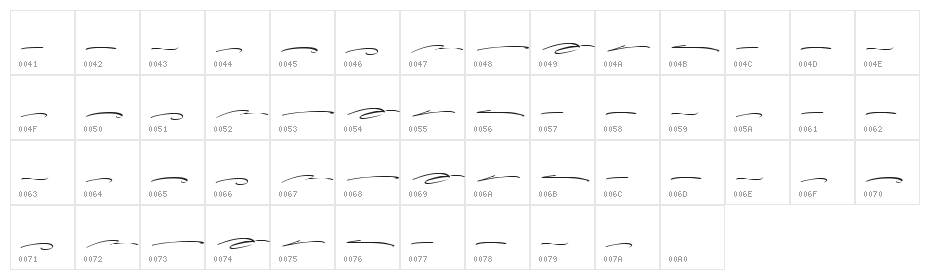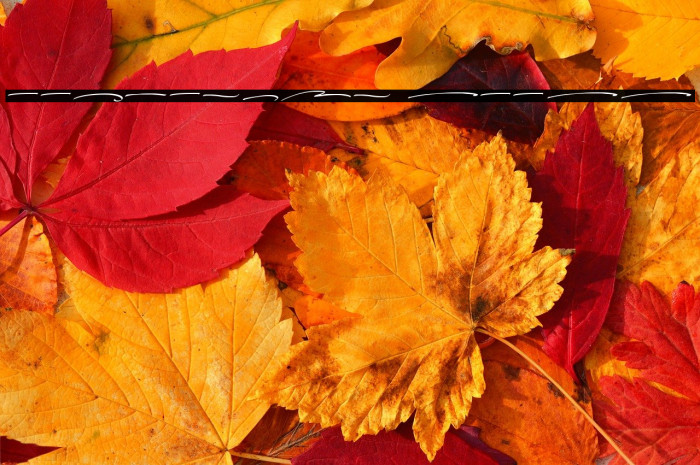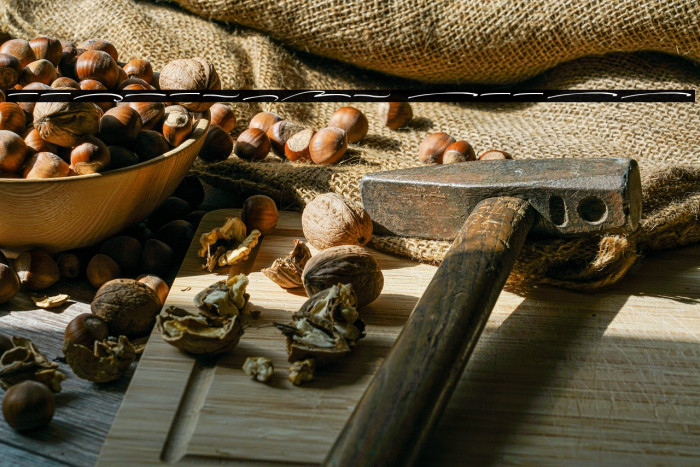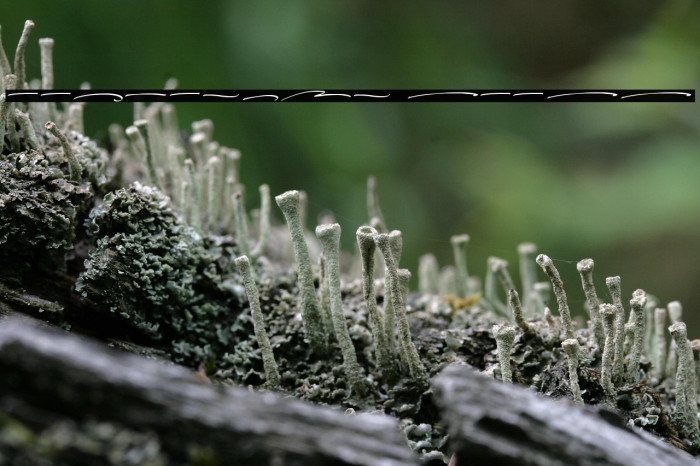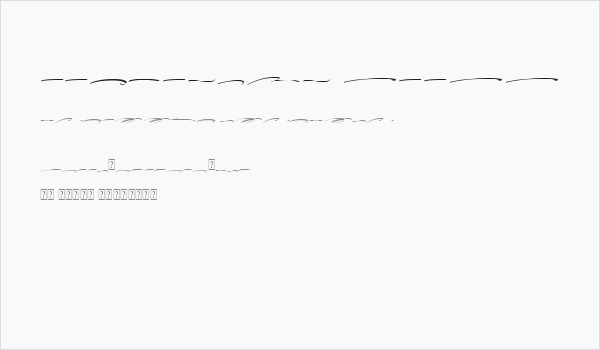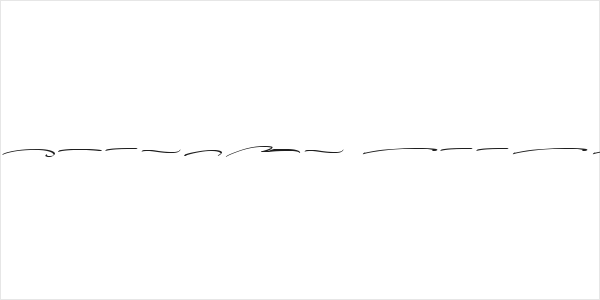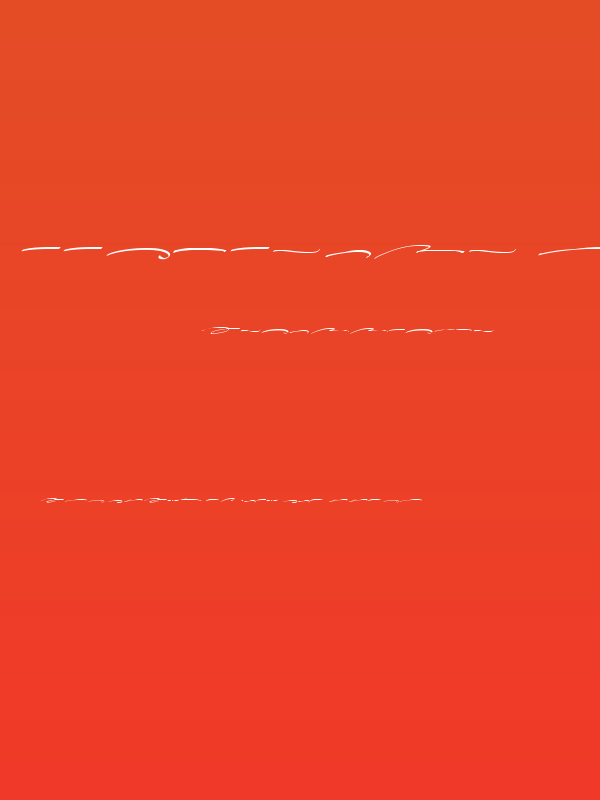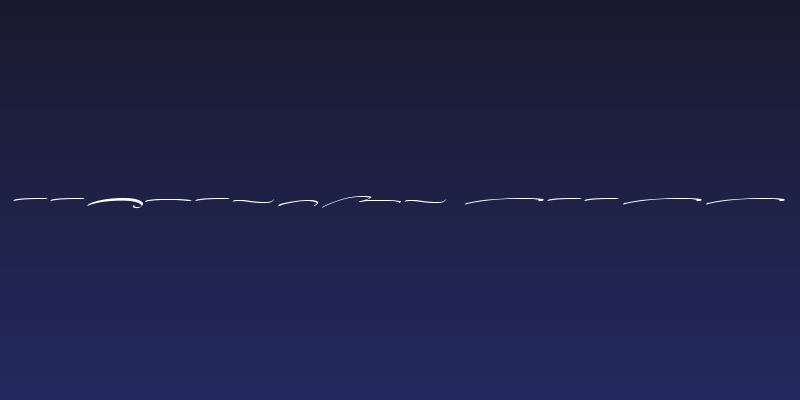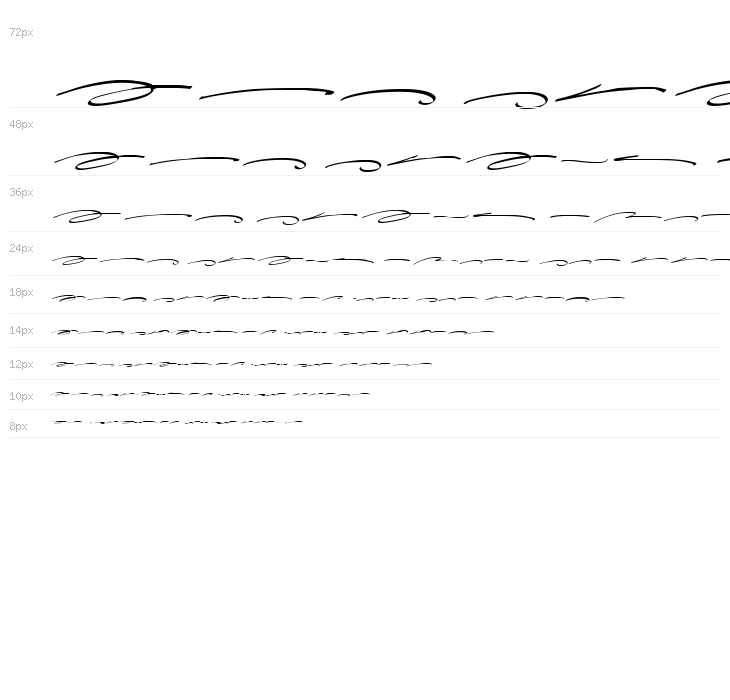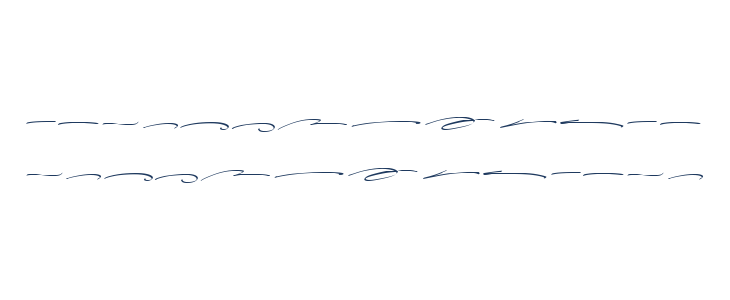
Alexandry Swash Font
Alexandry Swash Description
This design features elegant, flowing lines that create a sense of movement and grace. The strokes are thin and delicate, with intricate swirls and loops that add a decorative touch. The overall appearance is reminiscent of calligraphy, with a focus on ornamental details that enhance its visual appeal. The style is sophisticated and artistic, making it suitable for projects that require a touch of elegance and refinement.
| Proposed Projects | Ideal for wedding invitations, greeting cards, or any project requiring an elegant and artistic touch. |